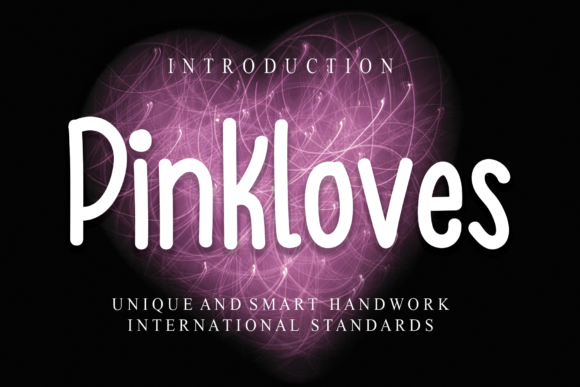
Discover Pinkloves Font: The Ultimate Script Typeface for Dazzling Designs
Welcome to the world of captivating typography with Pinkloves Font, an exquisite handwritten font that brings a touch of elegance and charm to your creative endeavors. Its free-flowing strokes and graceful curves seamlessly blend the beauty of nature with the precision of calligraphy. Embark on a journey of artistic expression with Pinkloves, the perfect font for creating breathtaking designs that redefine the boundaries of creativity.
Step into a World of Endless Possibilities with Pinkloves Font:
Unleash your imagination with Pinkloves Font, a true all-rounder that adapts effortlessly to a myriad of projects. Whether you're crafting captivating logos, designing eye-catching posters, or adding a personal touch to your social media posts, Pinkloves effortlessly elevates your designs to new heights of sophistication.
Immerse Yourself in the Beauty of Nature:
Experience the allure of nature's artistry with Pinkloves Font. Its organic brushstrokes capture the essence of flowing water, gentle breezes, and blooming flowers, infusing your designs with a sense of harmony and tranquility.
Craft Enchanting Invitations and Brochures:
Behold the magic of Pinkloves Font as it transforms your invitations and brochures into masterpieces of elegance. Its delicate lines and enchanting glyphs add a touch of allure that captivates the reader's attention, ensuring your messages leave a lasting impression.
Express Your Individuality with Captivating Quotes:
Let your words dance with grace and flair with Pinkloves Font. Its expressive style adds depth and character to your quotes, making them stand out and resonate with your audience.
Experience the Power of Versatility with Pinkloves Font:
Embrace the boundless potential of Pinkloves Font as it effortlessly complements a wide range of design styles. From vintage-inspired projects to modern, minimalist designs, this versatile font blends seamlessly, adapting to your creative vision with effortless grace.